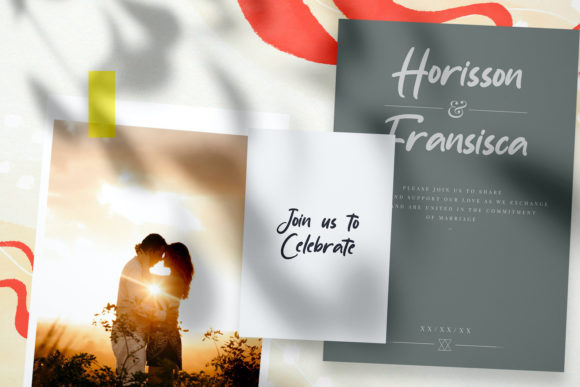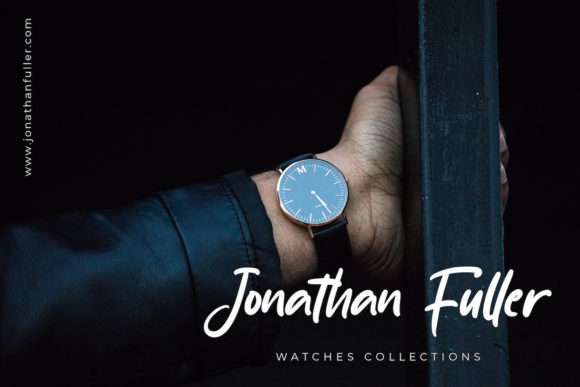
About Sabtu Minggu Font
Sabtu Mingguis a delicate, elegant, and free-flowing handwritten font. Its beautiful and well-balanced characters make it the perfect match for a wide pool of designs. Add it to your most creative ideas, and notice how it makes them come alive!